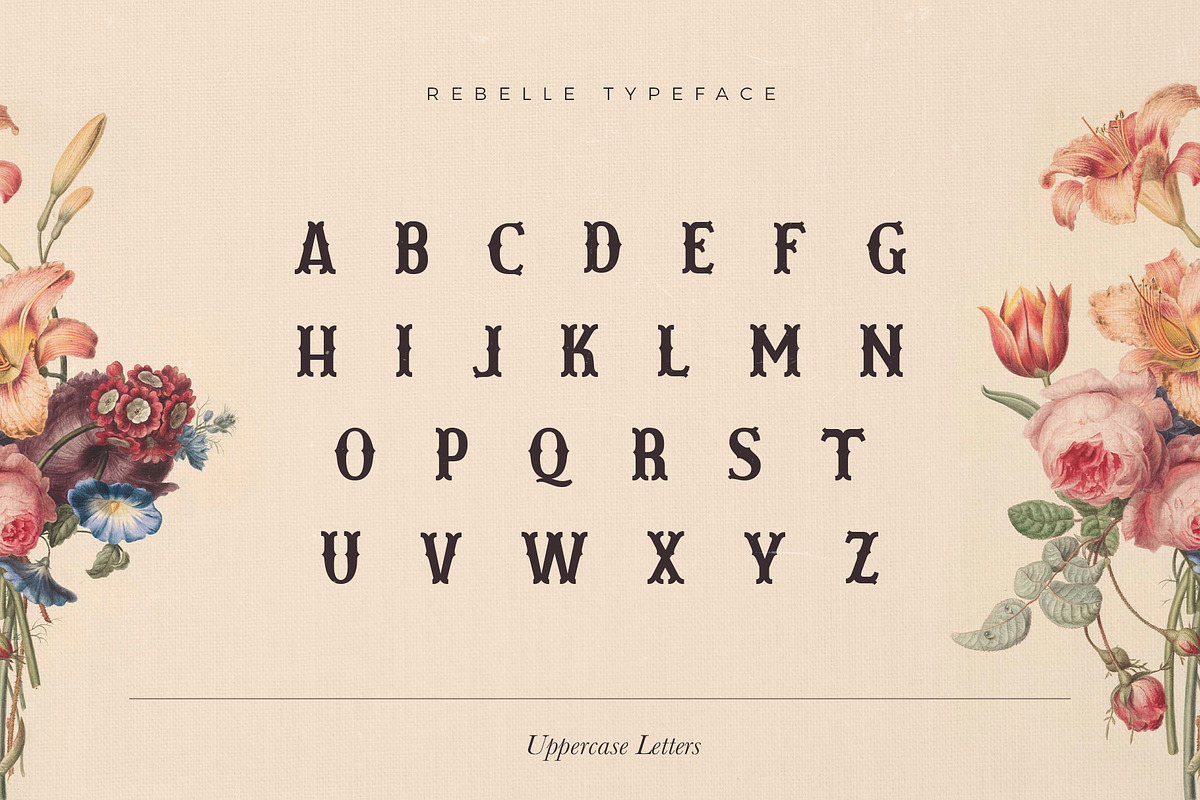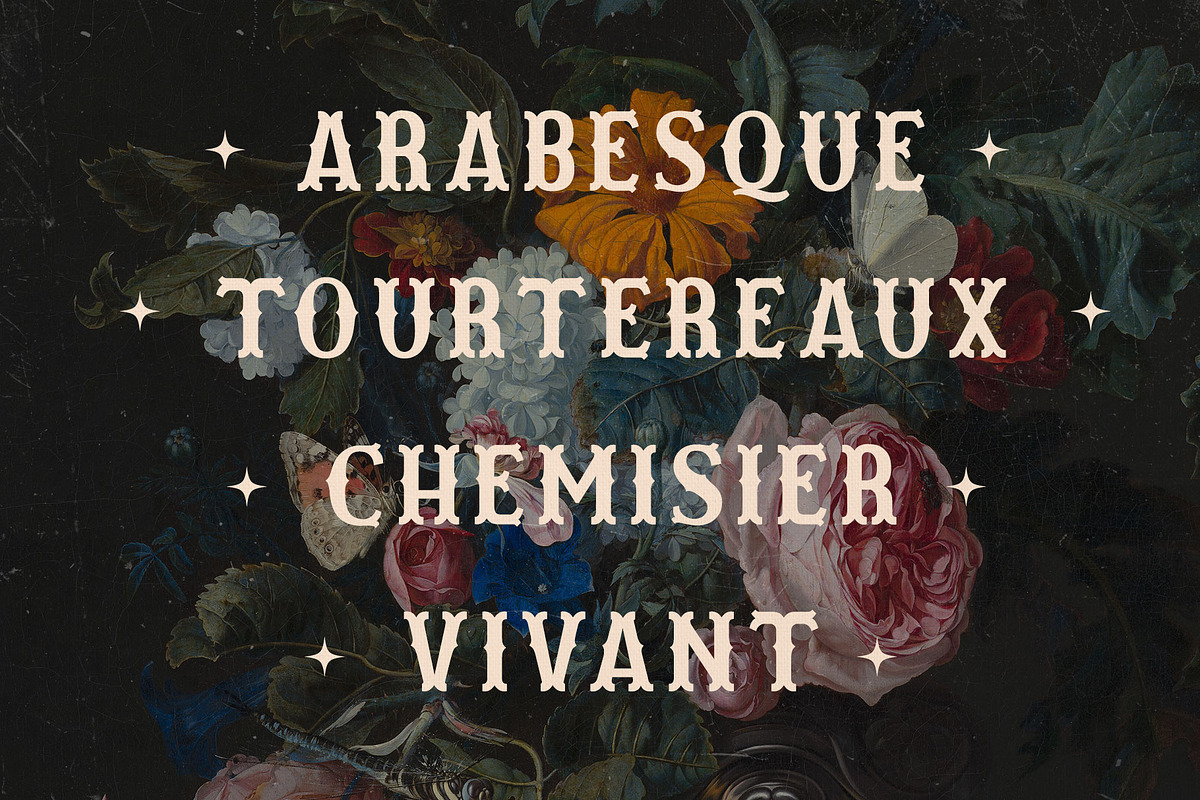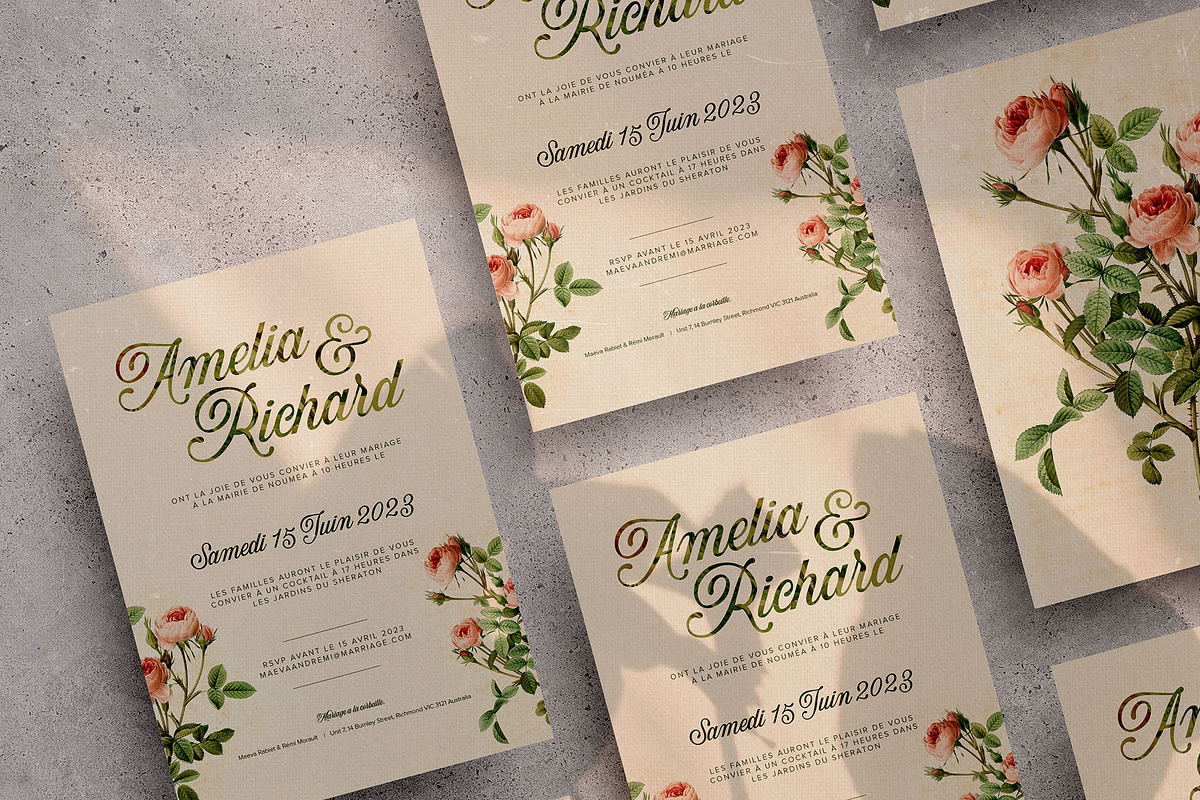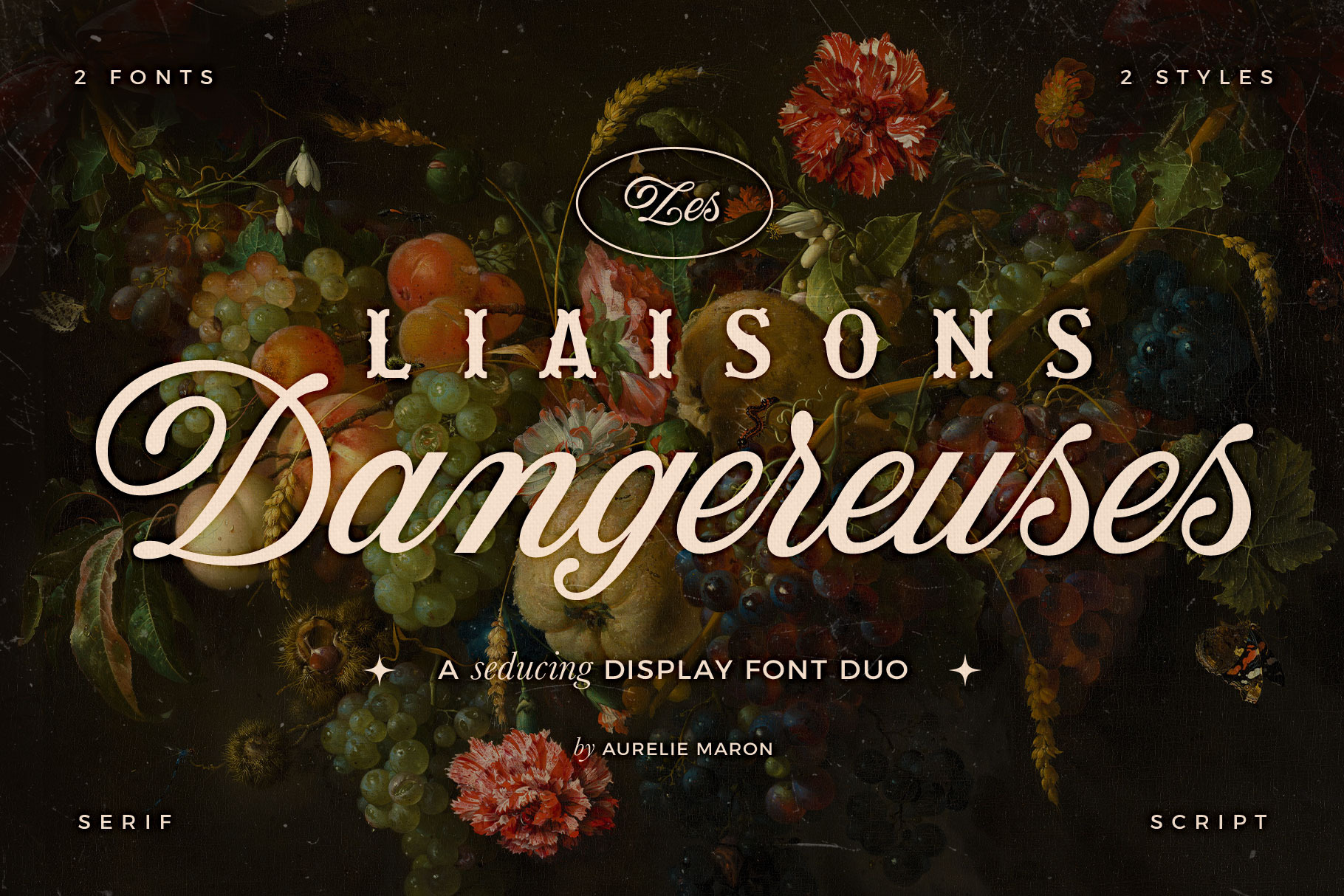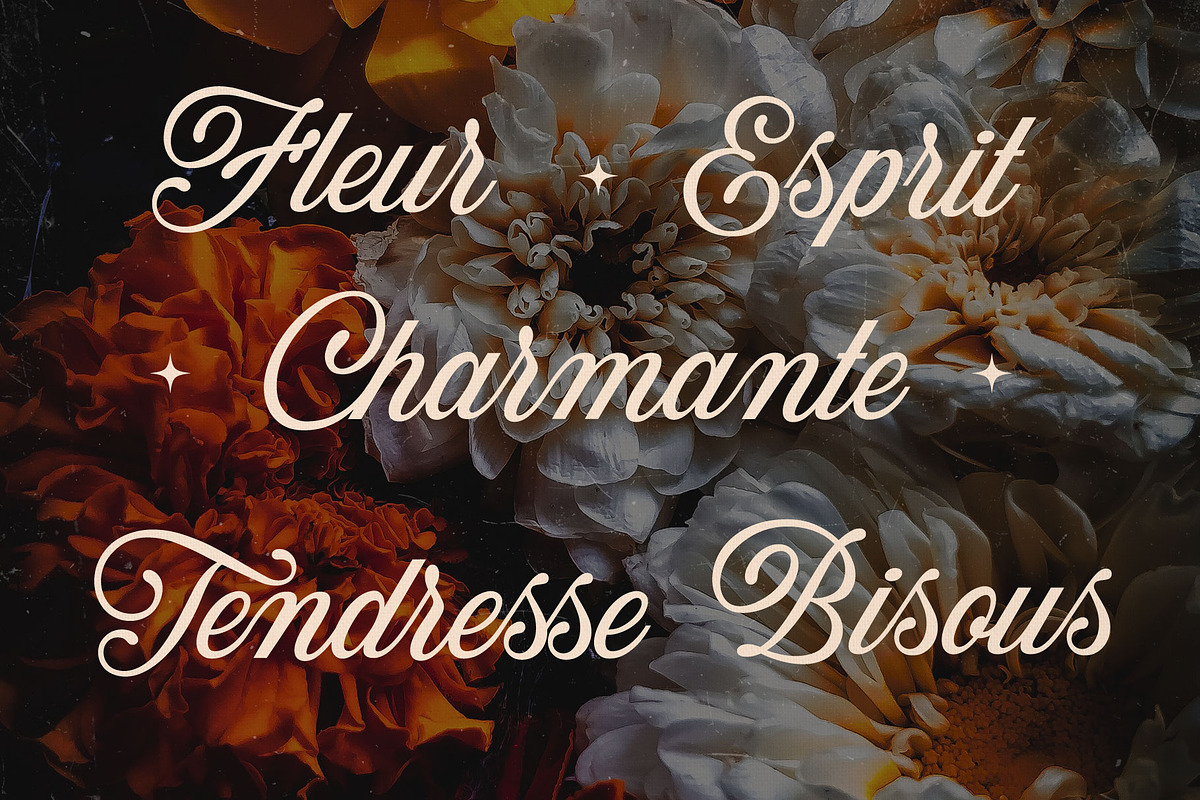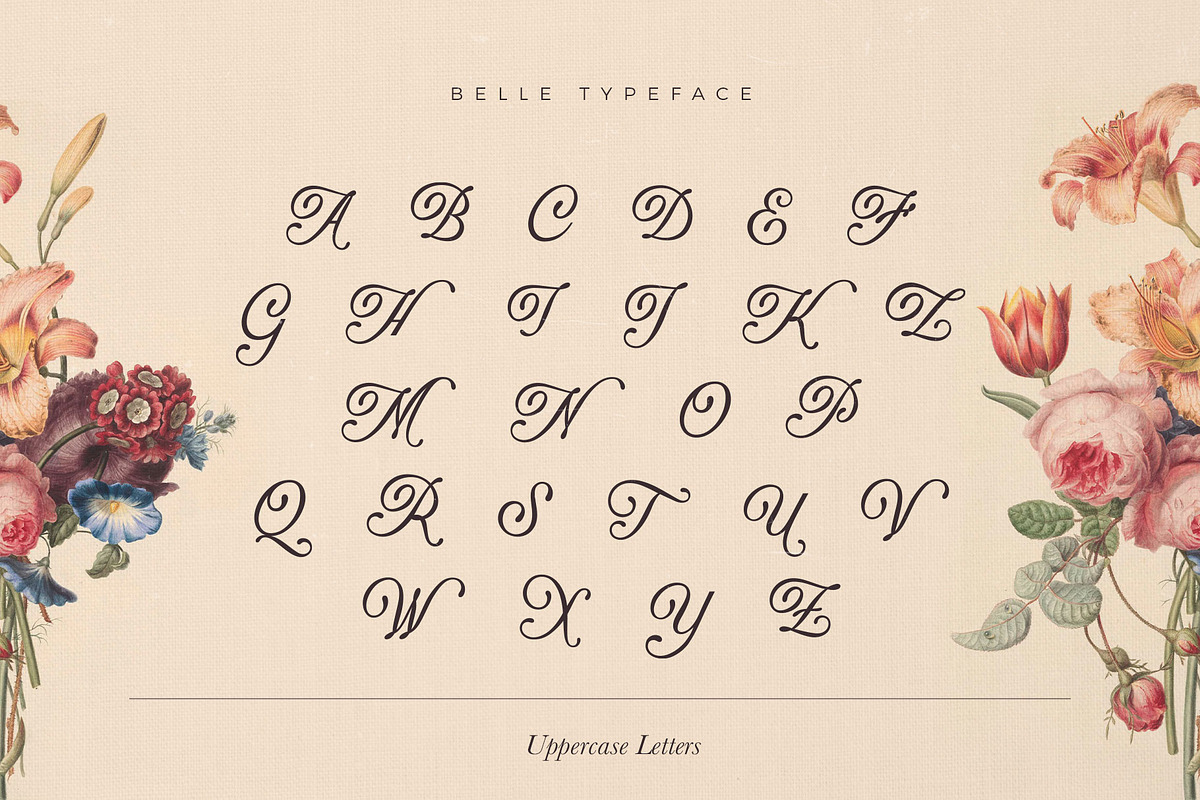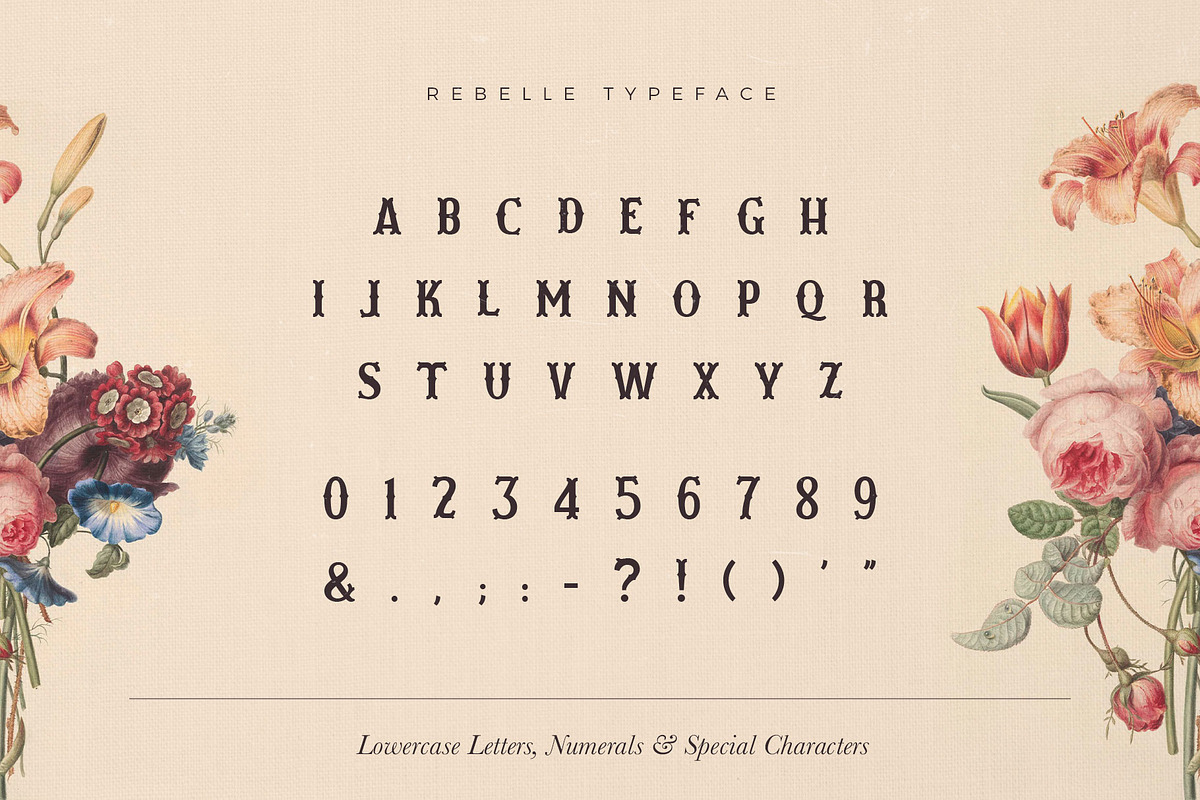
Les Liaisons Dangereuses Font Duo
Introducing Les Liaisons Dangereuse: a seducing font duo with a serif and a script font that fits perfectly with each other.
The duo includes uppercase, lowercase, numerals, special characters and ligatures.
Belle Typeface
Belle is a modern script typeface with rounded edges and a flowing appearance. This font is delicate yet edgy, which would be a perfect fit for a label or an invite. It includes refined kerning and ligatures, so you are worry-free to write anything you'd like.
Rebelle Typeface
Rebelle is a modern bold slab serif typeface with a vintage western appearance. This font comes with capitals and small caps only and is perfect for posters and headings. It includes kerning and special characters.